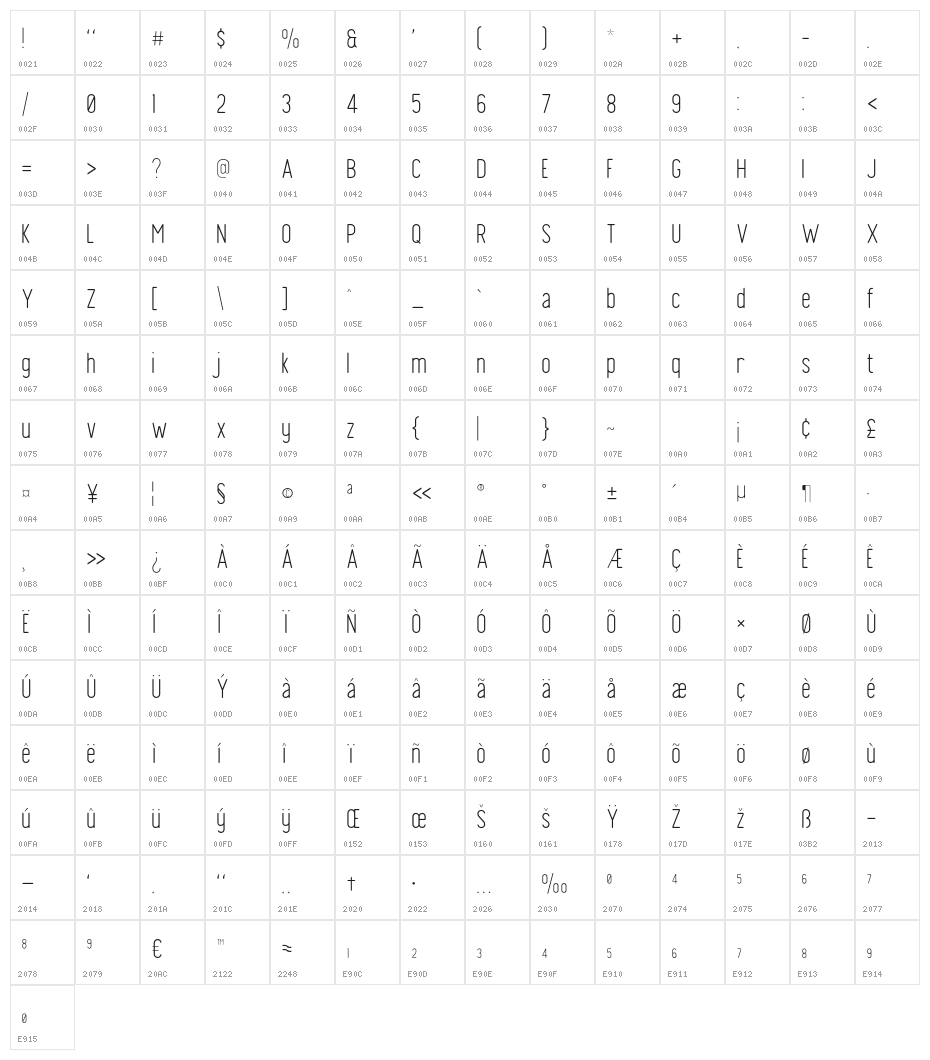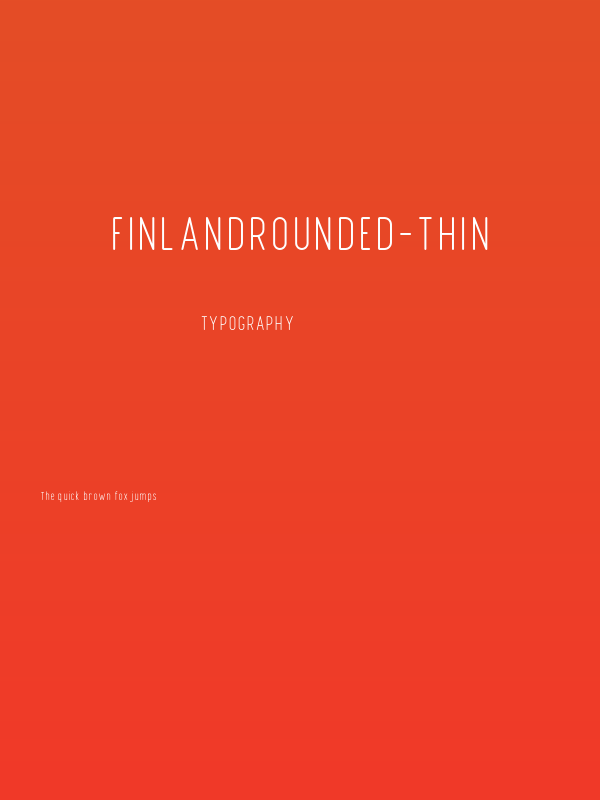
FinlandRounded-Thin Font
FinlandRounded-Thin Description
This font features a clean and modern design with rounded edges that give it a friendly and approachable appearance. The characters are tall and narrow, contributing to a sleek and contemporary look. The thin strokes enhance its elegance, making it suitable for minimalist designs. The font maintains consistent line thickness throughout, providing a uniform and harmonious aesthetic. Its simplicity and clarity make it highly legible, even at smaller sizes. The rounded terminals soften the overall feel, adding a touch of warmth to the otherwise geometric structure.
| Proposed Projects | Ideal for branding, web design, app interfaces, and modern print materials. |